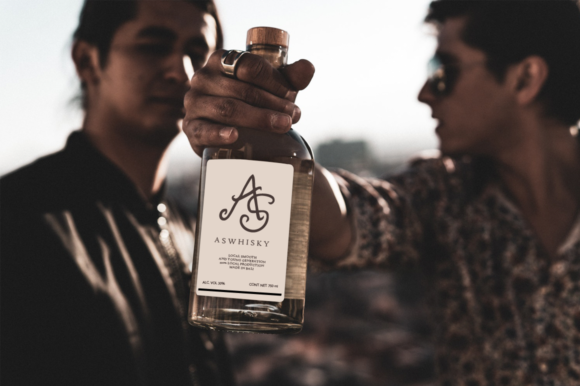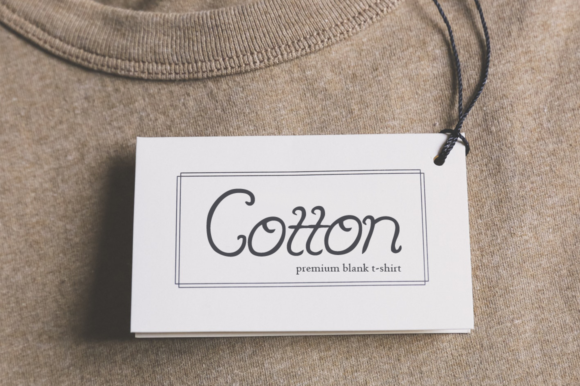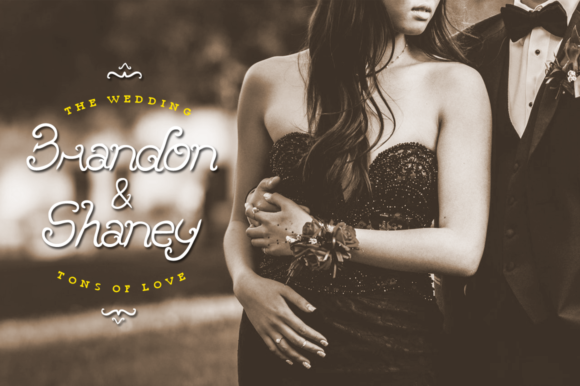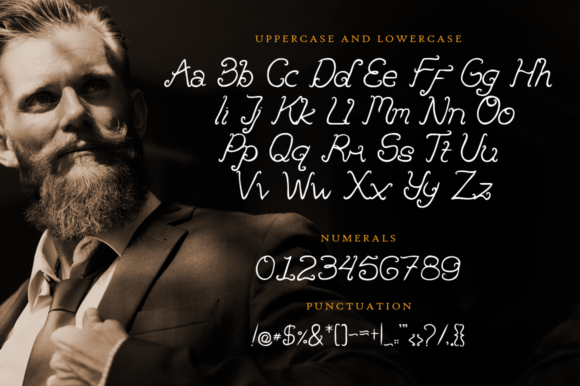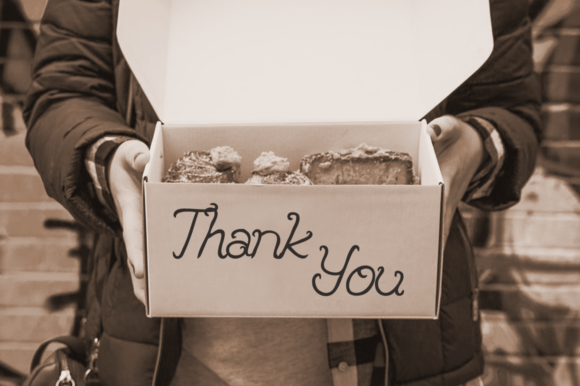
Introducing Brandalls Font: A Fancy and Curly Script for Your Design Projects
Are you tired of using the same old fonts for your design projects? Look no further than Brandalls Font, a beautiful and unique script that combines the flowing curves of ocean waves with the personal touch of handwriting. In this article, we’ll take a closer look at the inspiration behind Brandalls Font, its features, and how you can use it to elevate your designs.
The Inspiration Behind Brandalls Font
Brandalls Font was inspired by the movement and fluidity of ocean waves. The font’s creator wanted to capture the essence of the sea’s curves and translate them into a script that would be both elegant and playful. The result is a font that is not only visually striking but also evokes a sense of freedom and creativity.
Features of Brandalls Font
So, what makes Brandalls Font so special? Here are just a few of its key features:
- Fancy and curly: Brandalls Font is a script font that features beautiful, flowing curves and swashes. It’s perfect for adding a touch of elegance and sophistication to your designs.
- Inspired by ocean waves: The font’s unique shape and movement are inspired by the ocean’s waves, giving it a sense of fluidity and dynamism.
- Script handwriting: Brandalls Font combines the personal touch of handwriting with the consistency of a digital font. It’s perfect for creating a sense of warmth and approachability in your designs.
- Beautiful and curved surface: The font’s curved surface makes it perfect for use in a variety of design projects, from logos and branding to invitations and packaging.
Using Brandalls Font in Your Design Projects
So, how can you use Brandalls Font in your design projects? Here are a few ideas to get you started:
- Logos and branding: Brandalls Font is perfect for creating unique and memorable logos and branding materials. Its elegant curves and swashes make it ideal for businesses that want to stand out from the crowd.
- Invitations and stationery: Add a touch of elegance and sophistication to your invitations and stationery with Brandalls Font. It’s perfect for weddings, parties, and other special occasions.
- Packaging and product design: Brandalls Font is also great for use in packaging and product design. Its unique shape and movement make it perfect for creating eye-catching labels and packaging materials.
- Digital design: Brandalls Font can also be used in digital design projects, such as website headers, social media graphics, and email newsletters.
Tips for Working with Brandalls Font
Here are a few tips for working with Brandalls Font:
- Use it sparingly: Brandalls Font is a statement font, so use it sparingly to add emphasis and interest to your designs.
- Experiment with colors: The font’s elegant curves and swashes look great in a variety of colors. Experiment with different colors and combinations to find the one that works best for your design.
- Pair it with other fonts: Brandalls Font can be paired with other fonts to create a unique and interesting contrast. Try pairing it with a bold sans-serif font for a striking combination.
Brandalls Font is a beautiful and unique script font that is perfect for designers and crafters looking to add a touch of elegance and sophistication to their designs. Its flowing curves and swashes make it ideal for use in a variety of design projects, from logos and branding to invitations and packaging. With its inspiration from ocean waves and script handwriting, Brandalls Font is sure to make a splash in your next design project.